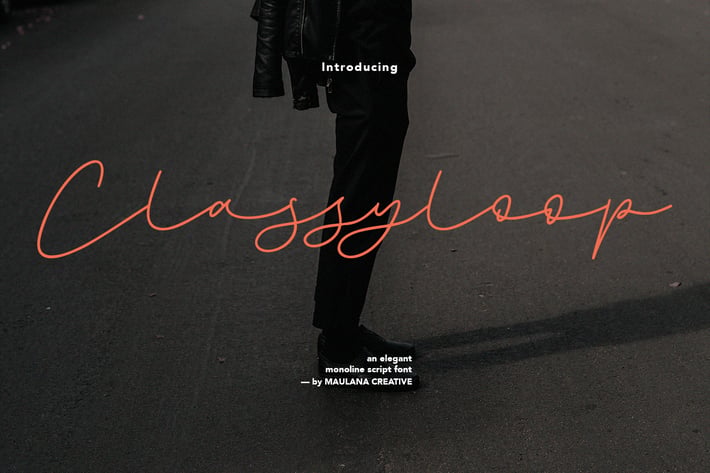
Classyloop Elegant Monoline Script Font
Give your designs an authentic handcrafted feel. "Classyloop Elegant Monoline Script Font" is perfectly suited to stationery, logos and much more.